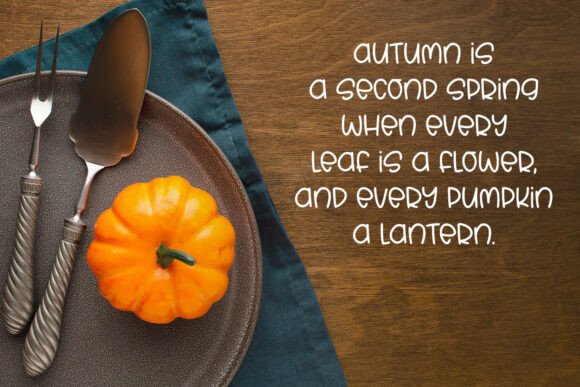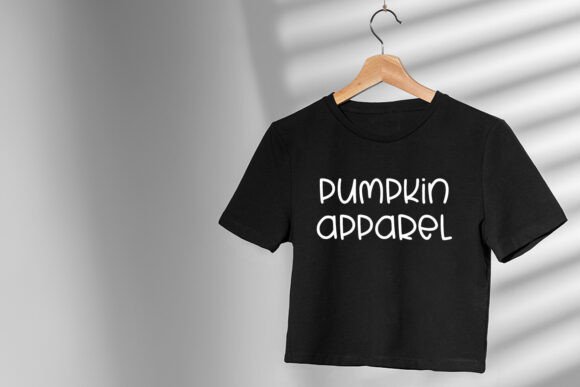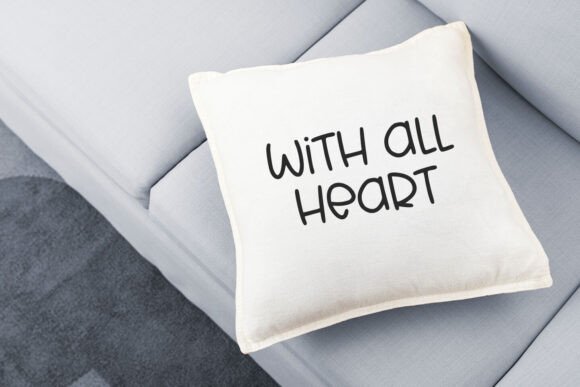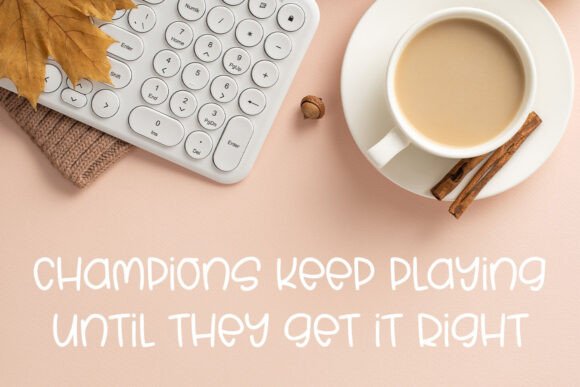
Introducing Apple Sugar Font: The Sweetest Addition to Your Design Arsenal
Are you tired of using the same old fonts in your designs? Look no further than Apple Sugar Font, a sweet and friendly handwritten font that’s sure to add a touch of whimsy to your creations. With its natural and unique style, Apple Sugar Font is incredibly versatile and can be used in a wide range of designs, from crafting and DIY projects to digital graphics and marketing materials.
The Charm of Apple Sugar Font
Apple Sugar Font is a handwritten font that’s designed to evoke a sense of warmth and friendliness. Its soft, rounded edges and flowing lines make it perfect for creating designs that feel approachable and inviting. Whether you’re creating a logo, a poster, or a social media graphic, Apple Sugar Font is sure to add a touch of personality to your design.
What Makes Apple Sugar Font So Special?
So, what sets Apple Sugar Font apart from other fonts out there? Here are just a few things that make it special:
- Unique and Handwritten Style: Apple Sugar Font is a truly one-of-a-kind font that’s been carefully crafted to have a unique, handwritten feel. Its natural and organic style makes it perfect for designs that need a personal touch.
- Highly Versatile: Whether you’re creating a digital graphic, a craft project, or a marketing material, Apple Sugar Font is incredibly versatile and can be used in a wide range of designs.
- Easy to Read: Despite its whimsical style, Apple Sugar Font is surprisingly easy to read, making it perfect for designs that need to communicate a message.
Apple Sugar Font is a dream come true for designers and crafters who are looking for a font that can add a touch of personality to their creations. Here are just a few ways you can use Apple Sugar Font in your designs:
- Crafting and DIY Projects: Use Apple Sugar Font to add a personal touch to your crafting and DIY projects, such as signs, banners, and other decorative items.
- Digital Graphics: Add a touch of whimsy to your digital graphics, such as social media posts, blog headers, and email newsletters.
- Marketing Materials: Use Apple Sugar Font to create eye-catching marketing materials, such as flyers, brochures, and business cards.
Tips for Using Apple Sugar Font
Here are a few tips for getting the most out of Apple Sugar Font:
- Use it with a contrasting font: Pair Apple Sugar Font with a contrasting font to create visual interest and make your design stand out.
- Experiment with colors: Apple Sugar Font looks great in a wide range of colors, so don’t be afraid to experiment and find the perfect hue for your design.
- Keep it simple: Don’t overcomplicate your design – Apple Sugar Font is perfect for simple, elegant designs that need a touch of personality.
Apple Sugar Font is a sweet and friendly handwritten font that’s perfect for designers and crafters who are looking for a unique and versatile font to add to their arsenal. With its natural and organic style, Apple Sugar Font is incredibly versatile and can be used in a wide range of designs. So why wait? Download Apple Sugar Font today and start creating designs that are as sweet as they are special!